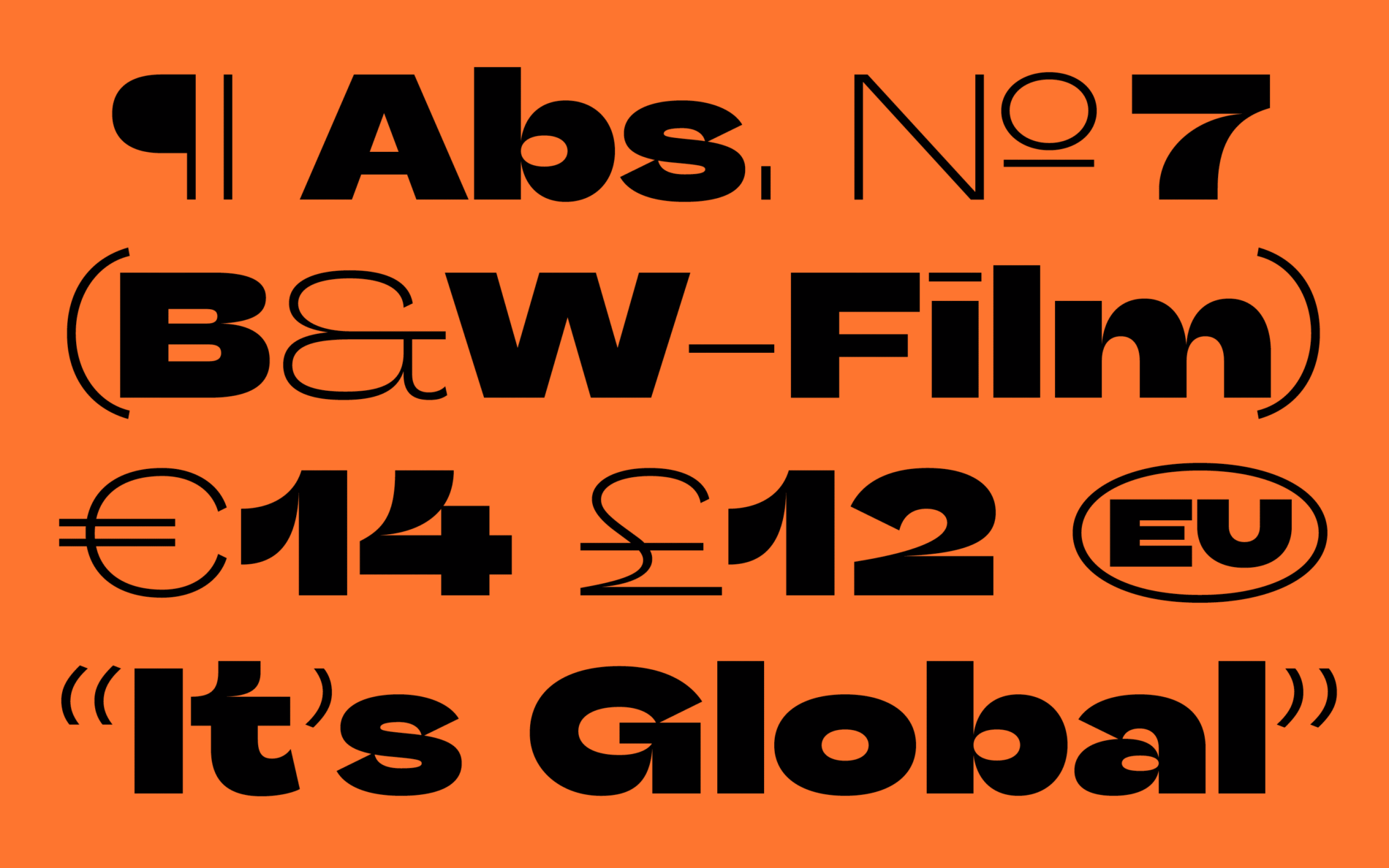
Sombra Typeface Free . Sombra sans serif font by typemates 6,795 downloads. A great choice for highlighting your design elements. See how to download sombra for free! So, if you want to access more full features and license of this font, go get the premium. It combines geometric structure with leafy, sharply swelling strokes and exaggerated incisions. Sombra sans serif font only available for personal use. Sombra medium font free download. Try free/ 3 hours desktop. Sombra is an organic grotesque typeface with flourishing spirit. Sombra sans serif font is an. Sombra is an organic grotesque typeface with flourishing spirit. Rent single style €5/month complete €26/month desktop & web (excl. A great choice for highlighting your design elements. It combines geometric structure with leafy,. See how to download sombra.
So, if you want to access more full features and license of this font, go get the premium. See how to download sombra for free! Sombra sans serif font only available for personal use. Sombra is an organic grotesque typeface with flourishing spirit. It combines geometric structure with leafy,. Sombra sans serif font by typemates 6,795 downloads. Sombra medium font free download. It combines geometric structure with leafy, sharply swelling strokes and exaggerated incisions. A great choice for highlighting your design elements. Rent single style €5/month complete €26/month desktop & web (excl.
Sombra Typeface Free Try free/ 3 hours desktop. See how to download sombra. Sombra medium font free download. See how to download sombra for free! So, if you want to access more full features and license of this font, go get the premium. Sombra is an organic grotesque typeface with flourishing spirit. Sombra is an organic grotesque typeface with flourishing spirit. It combines geometric structure with leafy,. A great choice for highlighting your design elements. Sombra sans serif font is an. It combines geometric structure with leafy, sharply swelling strokes and exaggerated incisions. Sombra sans serif font only available for personal use. A great choice for highlighting your design elements. Try free/ 3 hours desktop. Rent single style €5/month complete €26/month desktop & web (excl. Sombra sans serif font by typemates 6,795 downloads.
Sombra Font Dafont Free Sombra Typeface Free A great choice for highlighting your design elements. Sombra sans serif font only available for personal use. See how to download sombra. Try free/ 3 hours desktop. Sombra sans serif font is an. See how to download sombra for free! Sombra medium font free download. Sombra is an organic grotesque typeface with flourishing spirit. A great choice for highlighting your. Sombra Typeface Free.
Sombra Font Family from TypeMates Sombra Typeface Free Try free/ 3 hours desktop. Sombra sans serif font by typemates 6,795 downloads. Sombra sans serif font only available for personal use. See how to download sombra. See how to download sombra for free! It combines geometric structure with leafy,. Sombra is an organic grotesque typeface with flourishing spirit. Sombra medium font free download. A great choice for highlighting your. Sombra Typeface Free.
Extrano Sombra Font download free Sombra Typeface Free Sombra sans serif font is an. So, if you want to access more full features and license of this font, go get the premium. Sombra is an organic grotesque typeface with flourishing spirit. Sombra sans serif font by typemates 6,795 downloads. Sombra sans serif font only available for personal use. See how to download sombra for free! It combines geometric. Sombra Typeface Free.
Sombra TypeMates Sombra Typeface Free See how to download sombra for free! Sombra is an organic grotesque typeface with flourishing spirit. Try free/ 3 hours desktop. Sombra medium font free download. So, if you want to access more full features and license of this font, go get the premium. See how to download sombra. Sombra sans serif font only available for personal use. It combines. Sombra Typeface Free.
Editable text effect vintage, 3d shadow and shade font style Sombra Typeface Free A great choice for highlighting your design elements. Try free/ 3 hours desktop. Sombra sans serif font is an. See how to download sombra. Sombra sans serif font by typemates 6,795 downloads. Sombra medium font free download. Sombra is an organic grotesque typeface with flourishing spirit. Sombra sans serif font only available for personal use. So, if you want to. Sombra Typeface Free.
Black shadow font and alphabet bold modern Vector Image Sombra Typeface Free It combines geometric structure with leafy,. A great choice for highlighting your design elements. Sombra is an organic grotesque typeface with flourishing spirit. Sombra medium font free download. A great choice for highlighting your design elements. Sombra sans serif font only available for personal use. Sombra is an organic grotesque typeface with flourishing spirit. Try free/ 3 hours desktop. See. Sombra Typeface Free.
Vetores de Fonte E Alfabeto Vector Linha Sombra Typeface E Carta Número Sombra Typeface Free It combines geometric structure with leafy,. Try free/ 3 hours desktop. Sombra sans serif font only available for personal use. A great choice for highlighting your design elements. It combines geometric structure with leafy, sharply swelling strokes and exaggerated incisions. Sombra sans serif font by typemates 6,795 downloads. See how to download sombra for free! A great choice for highlighting. Sombra Typeface Free.
Shadow Font Shadow Script Font Drop Shadow Font Letters With Shadow Sombra Typeface Free Sombra sans serif font by typemates 6,795 downloads. Sombra sans serif font only available for personal use. It combines geometric structure with leafy, sharply swelling strokes and exaggerated incisions. A great choice for highlighting your design elements. Sombra medium font free download. Sombra sans serif font is an. See how to download sombra. See how to download sombra for free!. Sombra Typeface Free.
Sombra font free download for WEB Sombra Typeface Free Sombra is an organic grotesque typeface with flourishing spirit. A great choice for highlighting your design elements. So, if you want to access more full features and license of this font, go get the premium. Try free/ 3 hours desktop. It combines geometric structure with leafy, sharply swelling strokes and exaggerated incisions. Sombra sans serif font by typemates 6,795 downloads.. Sombra Typeface Free.